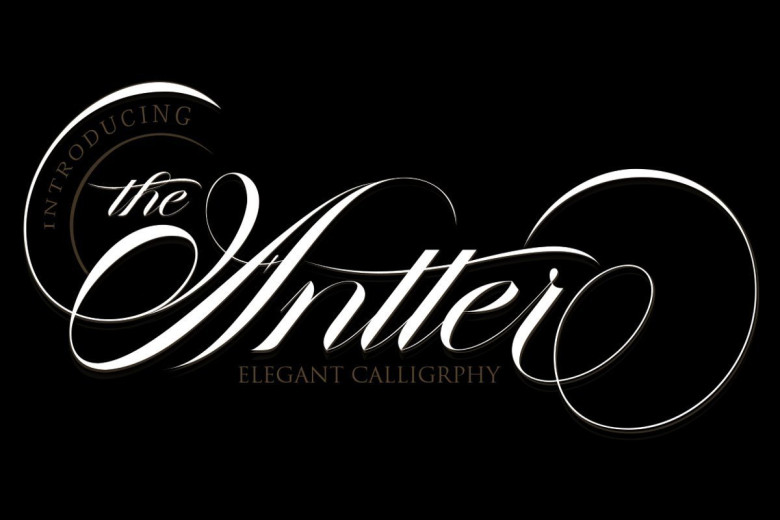
The Antter Calligraphy Script Font
The Antter is a calligraphic script font that comes with a very beautiful change of character, a type of classic decorative copper script with a modern touch, designed with high detail to bring stylish elegance.
Anter is attractive as a type of font that is smooth, clean, feminine, sensual, glamorous, simple and very easy to read, because there are many fancy letter connections.I also provide a decent alternative value for many letters.
The classic style is very suitable to be applied in formal forms such as invitations, labels, restaurant menus, logos, fashion, make up, stationery, novels, magazines, books, greeting / wedding cards, packaging, labels or various types of advertising purposes.